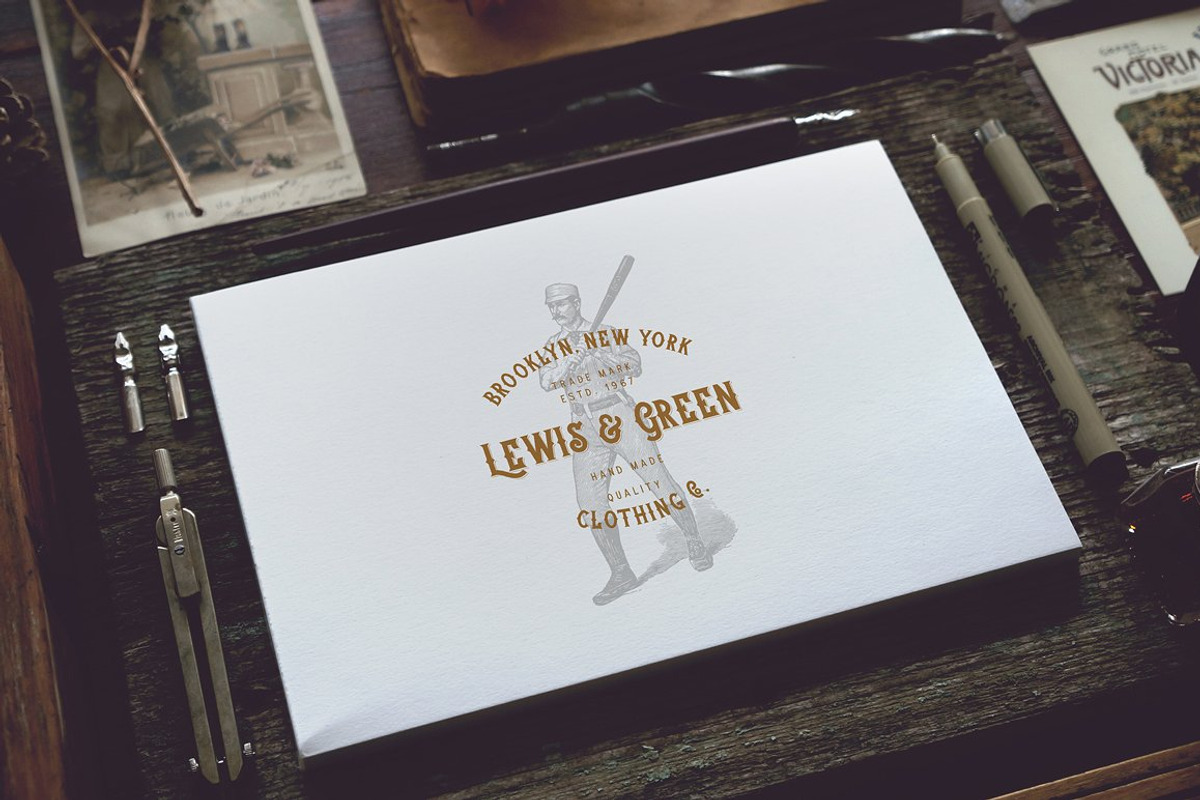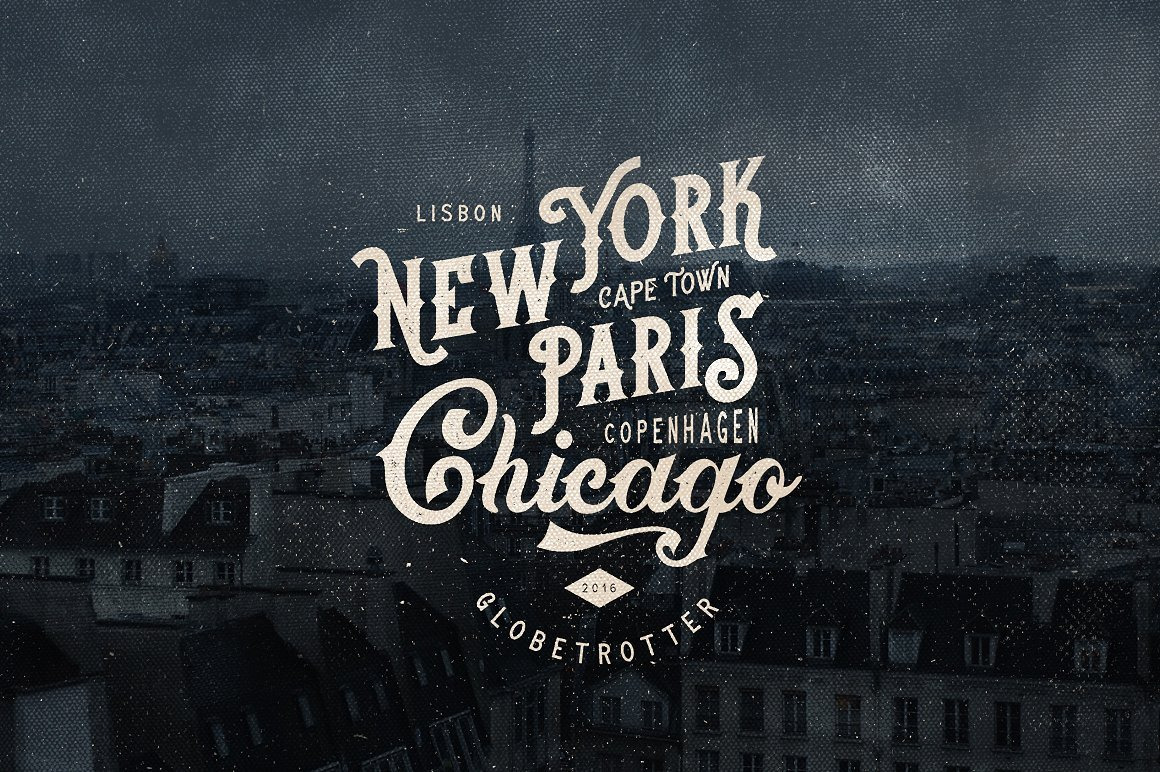
Brooks Brothers Typeface
A set of three hand-drawn irregular shaped fonts which adds a vintage touch to your design, perfect for logotypes, printed quotes, t-shirts, packaging, invitations, greeting cards, text headers and more.
Brooks Brothers Typeface contains three fonts:
- Matthew type which includes upper & lowercase characters, punctuation, symbols, stylistic alternatives, ligatures, finals, international characters and swash trails.
- Douglas type which includes upper & lowercase characters, punctuation, symbols and international characters.
- James type which includes upper & lowercase characters, punctuation, symbols and international characters.